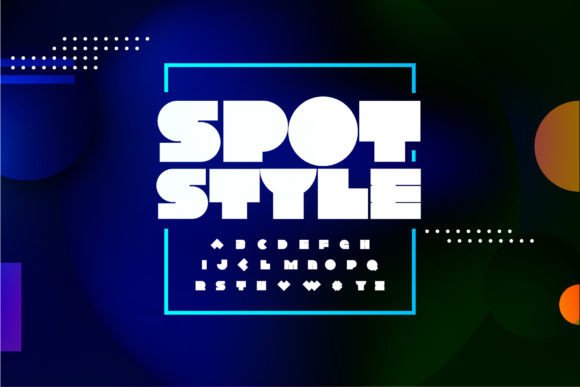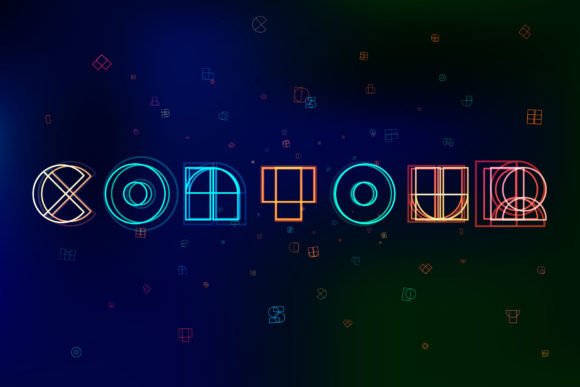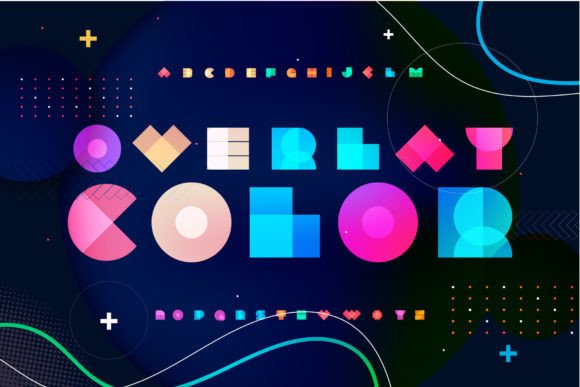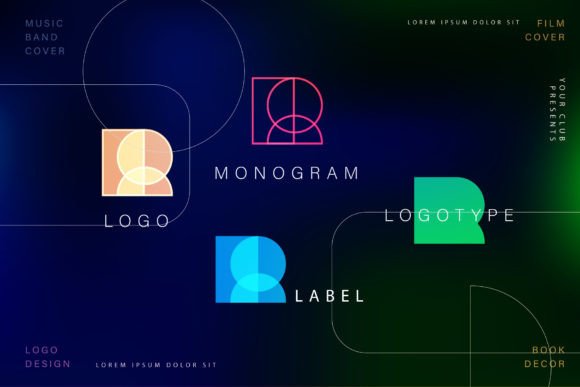
Introduction to Pac Mac Font
You know that moment when you’re working on a creative project, and you just can’t seem to find the right font to match your design? It’s like searching for a needle in a haystack, until suddenly, you stumble upon that one font that makes everything click. For designers, this is a moment of pure joy, and for us, that font is the Pac Mac Font. This fun and bold display font is a game-changer for any design project, adding a touch of whimsy and personality that’s hard to find elsewhere.
With its high-quality design and transparent background, the Pac Mac Font is a valuable resource for any creative project. Whether you’re working on a digital design, a logo, or a marketing campaign, this font is sure to add a pop of fun and energy. And the best part? It’s available for a free download, making it an instant addition to your design arsenal.
- High-quality design resource ideal for creative projects, offering a unique and playful aesthetic.
- Features a clean and modern design, with bold lines and shapes that add a touch of whimsy to any creative project.
Honest Review: Pac Mac Font
I recently had the chance to work with the Pac Mac Font, and I have to say, I was impressed. This font is a design resource that can elevate any creative project. One of the things that stands out is its high quality and sleek design.
- ✨ High-quality design: The Pac Mac Font has a modern and clean aesthetic that makes it perfect for a variety of projects.
- ✨ Transparent background: This feature makes it easy to use the font on different backgrounds and color schemes.
While the Pac Mac Font is a great addition to any design arsenal, there are a few limitations to consider. For example:
- ⚠️ Limited character set: The font only includes a limited set of characters, which may not be ideal for projects that require a wide range of symbols and glyphs.
- ⚠️ Not suitable for all typography styles: The font’s modern aesthetic may not be suitable for projects that require a more traditional or vintage look.
Overall, I was impressed with the Pac Mac Font. Its high quality and sleek design make it a great option for designers looking to elevate their creative projects. While there are a few limitations to consider, I would definitely recommend this font to anyone looking for a modern and versatile design resource.
Getting the Most Out of Pac Mac Font
To get the most out of the Pac Mac Font, be sure to use it in conjunction with a high-quality design. Experiment with different font sizes, colors, and styles to create a unique and eye-catching design. You can also use the font in combination with other design elements, such as images and graphics, to create a cohesive and professional-looking design.
Whether you’re a seasoned designer or just starting out, Pac Mac Font is an excellent choice. Its unique style and versatility make it an ideal addition to any design toolkit. So why not download Pac Mac Font today and see the impact it can have on your creative project? With its high-quality design and transparent background, you won’t be disappointed. Get ready to take your designs to the next level with Pac Mac Font!